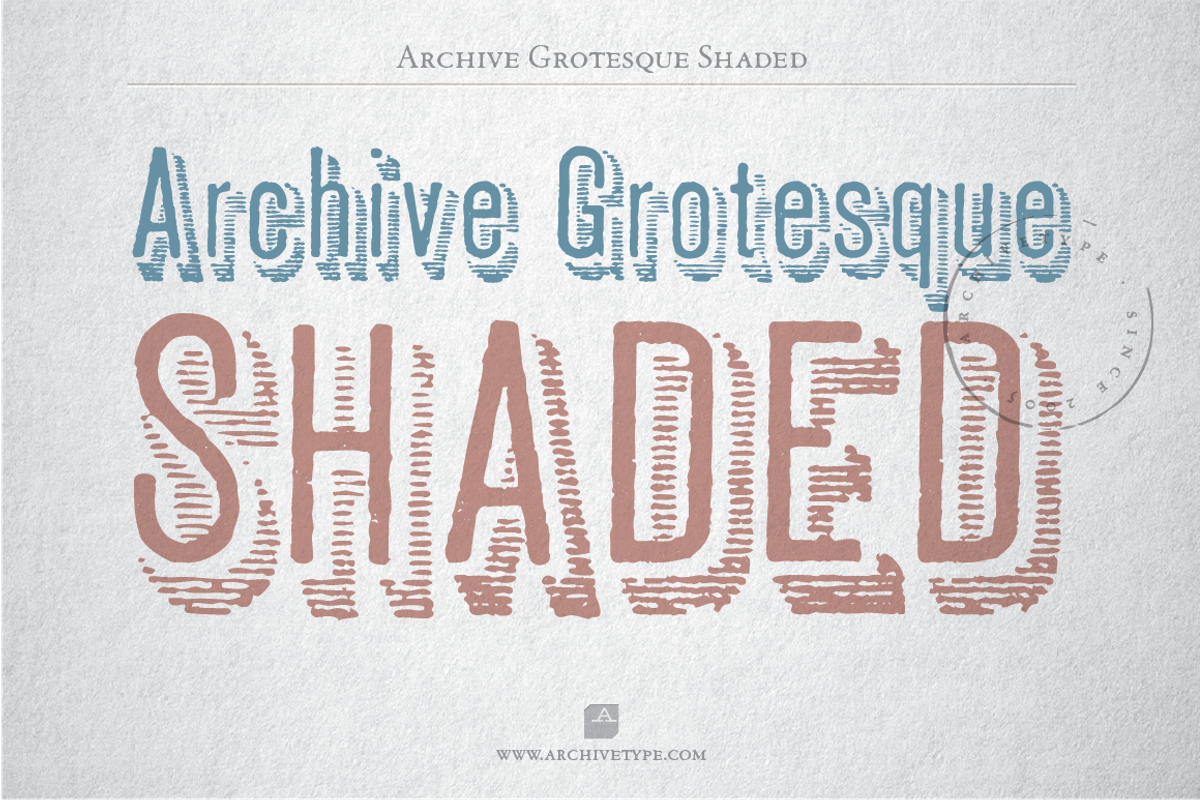
Archive Grotesque Shaded Font Free Download is a vintage-inspired display typeface that combines the boldness of classic grotesque lettering with a distinctive shaded effect. Ideal for retro posters, book covers, signage, branding, and editorial layouts, this font adds a sense of historical charm and visual depth to your typography.
Its strong geometric forms, paired with the shaded detailing, create a striking 3D illusion that commands attention. Archive Grotesque Shaded is perfect for making bold headlines or crafting nostalgic designs that stand out with character and authenticity.